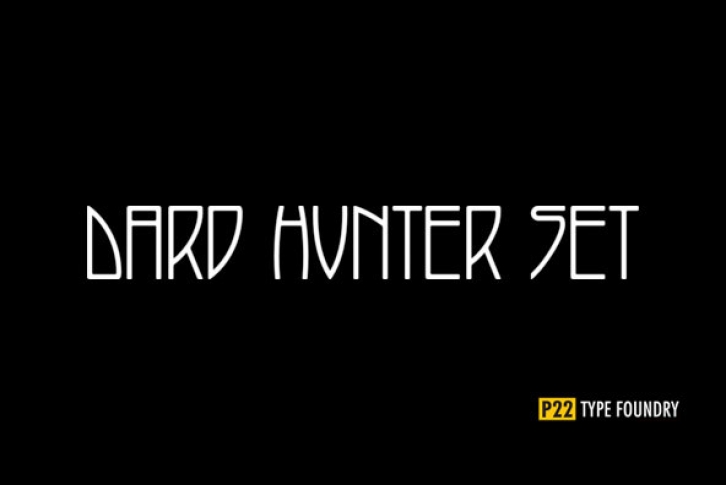
Dard Hunter was arguably one of the most influential graphic designers to come out of the American Arts and Crafts movement. Here are more authentic Dard Hunter designs from his Roycroft era (1900-1910), authorized by his grandson, Dard Hunter III. The set includes our Arts and Crafts Ornaments 2 that now contains 72 graphic extras, and two new Hunter-designed alphabets.